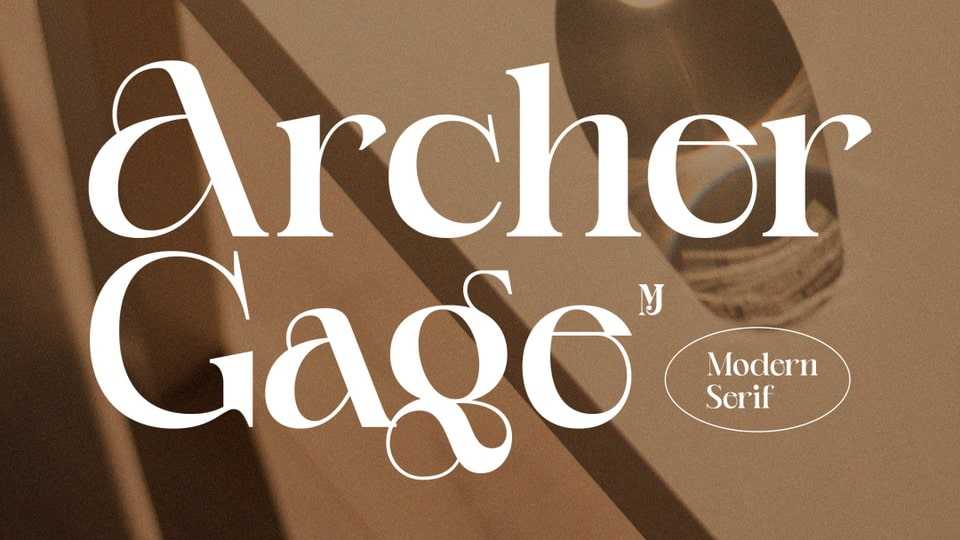
Download Archer Gage font, a powerful tool for creating impactful and memorable designs. The delicate curves and intricate details of an elegant serif typeface can create a sense of refinement and sophistication that captures the attention of viewers and leaves a lasting impression.